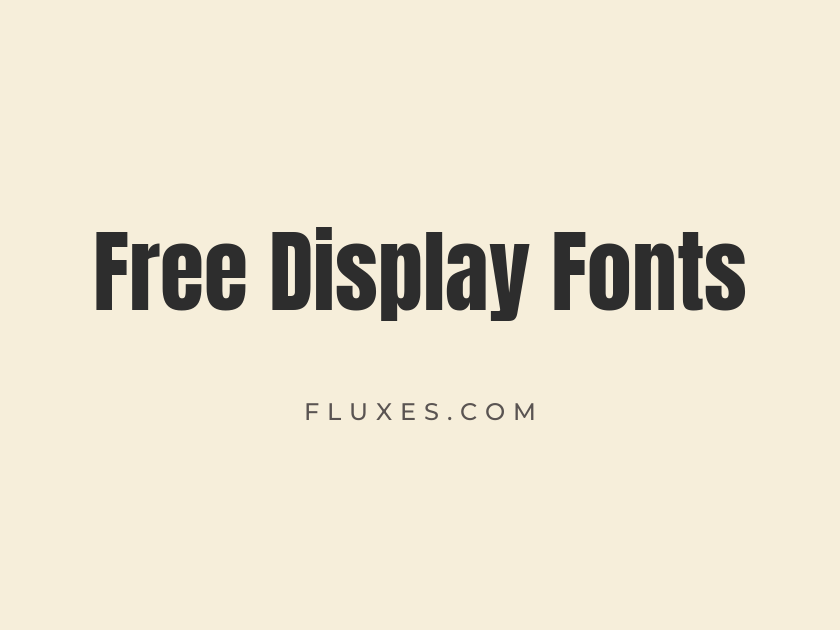
65 Best Free Display Fonts
Display type exists to be seen first. It is the type that carries a poster across a room, stops a scroll, or makes a homepage headline feel like a statement rather than a label. Because personality matters more than legibility at ten points, this is the category where free type foundries and independent designers have had the most fun, and Google Fonts now hosts an enormous range of bold, strange, elegant, and playful faces that rival anything sold commercially.
What follows is a wide survey of free display fonts for headlines, posters, logos, packaging, and hero sections, organized loosely by mood: chunky grotesks built for impact, elegant serifs for editorial and luxury branding, scripts and hand-lettered faces with warmth, and a run of retro, futuristic, and novelty faces for when a project needs real character. All are free to download and use through Google Fonts.
1. Anton
BOLD HEADLINES THAT DEMAND ATTENTION
Anton is the workhorse of free display type: a condensed, ultra-bold grotesk that reads as confident without tipping into gimmicky. It shows up constantly on posters, YouTube thumbnails, and sale banners because it does exactly one job, shouting, extremely well.
2. Bebas Neue
CLEAN CAPS FOR MODERN BRANDING
Few free fonts have been adopted as widely as Bebas Neue, an all-caps condensed sans that pairs slim strokes with generous height. It has become something of a default for minimalist logotypes and editorial mastheads, so consider pairing it with an unexpected color or texture to keep a design from feeling generic.
3. Archivo Black
Big, sturdy type built for the web
Archivo Black trades condensed drama for width and weight, giving headlines a planted, geometric solidity. It stays crisp at large sizes on screen, which makes it a reliable choice for hero banners and app landing pages.
4. Staatliches
RETRO SIGNAGE STYLE FOR BOLD TITLES
Staatliches borrows the feel of mid-century stencil signage and hand-painted storefronts, with slightly irregular curves that keep it from feeling machine-made. It works best short and loud, as a title or logotype rather than a paragraph.
5. Fjalla One
Sharp condensed type for strong statements
Originating from Finland, Fjalla One is a narrow sans with a slightly rounded finish that softens its otherwise assertive proportions. It sits comfortably in editorial layouts where a condensed headline needs to feel serious rather than aggressive.
6. Six Caps
ULTRA CONDENSED TYPE FOR TIGHT SPACES
Six Caps
Six Caps is about as narrow as display type gets while staying readable, making it useful for vertical signage, side panels, or any layout starved for horizontal space. Use it sparingly at large sizes; anything smaller and the tight spacing starts to fight the eye.
7. Teko
Sleek condensed type with sporty energy
Teko has a technical, angular quality that suits sports branding, dashboards, and event graphics. Its range of weights means it can carry both a punchy headline and a supporting subhead without switching families.
8. Khand
Sturdy condensed sans for modern headers
Khand
Khand shares DNA with Teko but leans slightly rounder and friendlier, which makes it a good fit for app interfaces and product headlines that still want a condensed footprint. It reads cleanly even at moderate sizes, unlike some of its narrower cousins.
9. Squada One
Rounded bold type for confident logos
Squada One
Squada One’s rounded terminals give it a friendly, toy-like presence despite its heavy weight. It suits logotypes for games, apps, and youth brands that want boldness without sharp edges.
10. Racing Sans One
Fast, slanted type for motorsport branding
Racing Sans One
As the name suggests, Racing Sans One carries a forward lean and clipped terminals that evoke speed. It is a natural fit for motorsport graphics, energy drink packaging, or anything that needs to feel like it is already moving.
11. Black Ops One
Stenciled type for military-inspired posters
Black Ops One channels military stencil lettering, all sharp corners and even weight. It works well in gaming and tactical-themed branding but can read heavy-handed outside that context, so use it where the reference actually fits.
12. Rubik Mono One
Geometric monospace type with bold presence
Rubik Mono One
Every character in Rubik Mono One occupies the same width, giving headlines a mechanical, grid-like rhythm. That evenness makes it useful for tech branding and data-driven design where a sense of order matters as much as boldness.
13. Days One
Rounded geometric type for friendly headlines
Days One
Days One keeps its geometry simple and its corners soft, landing somewhere between a display face and a friendly logotype font. It is legible at a glance, which makes it useful for app names and short product titles.
When self-hosting or loading these from Google Fonts, limit each page to one or two display families. Stacking several attention-seeking fonts on the same screen tends to cancel out the impact each one is trying to make.
Free display type has come a long way from a handful of overused defaults. With this many strong, distinct options now available through Google Fonts, there is rarely a good reason to reach for a paid alternative before checking whether a free face already does the job, and does it well.